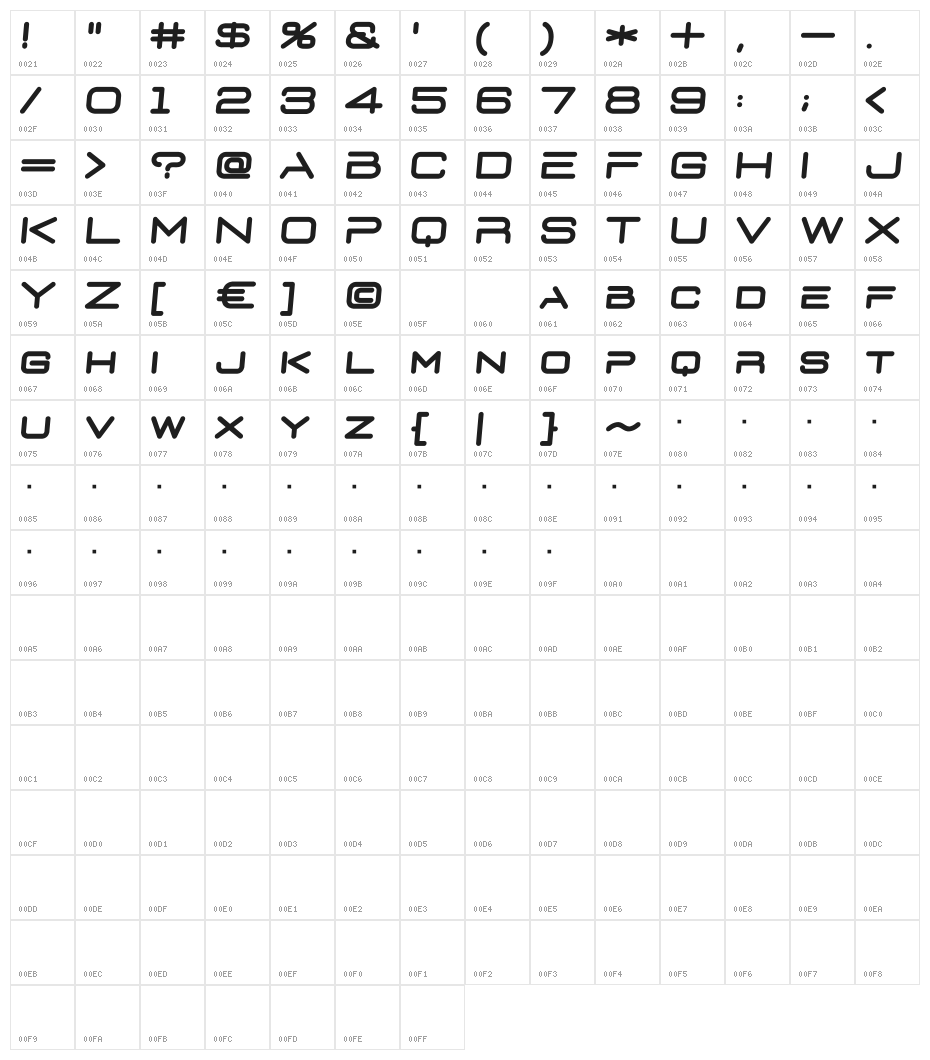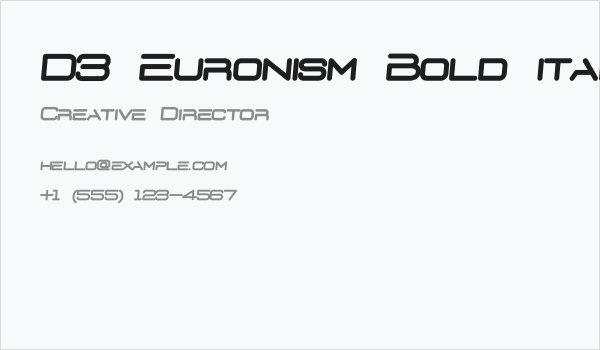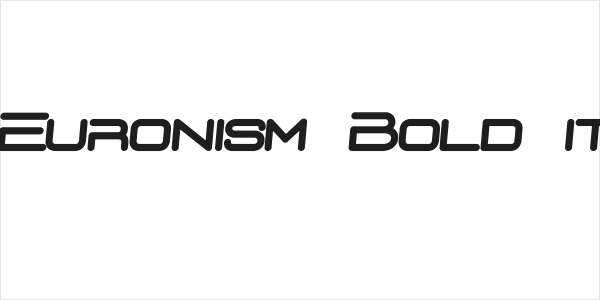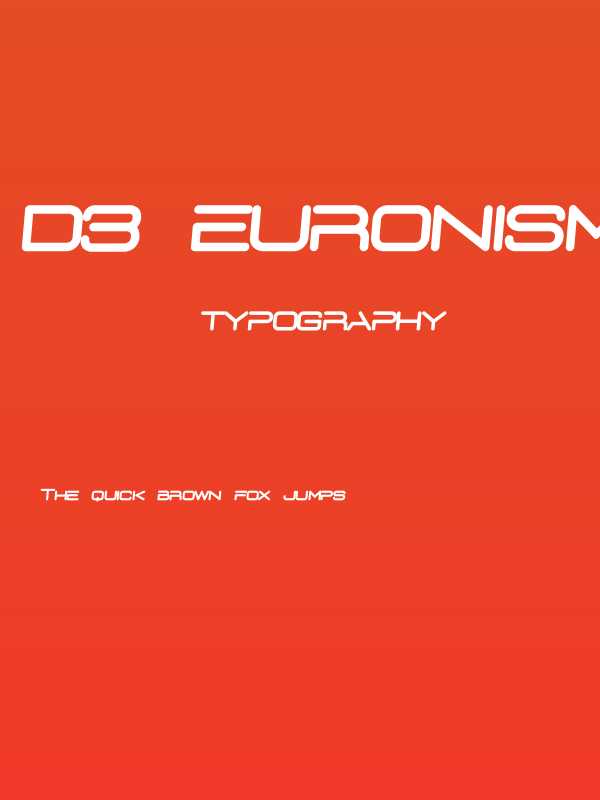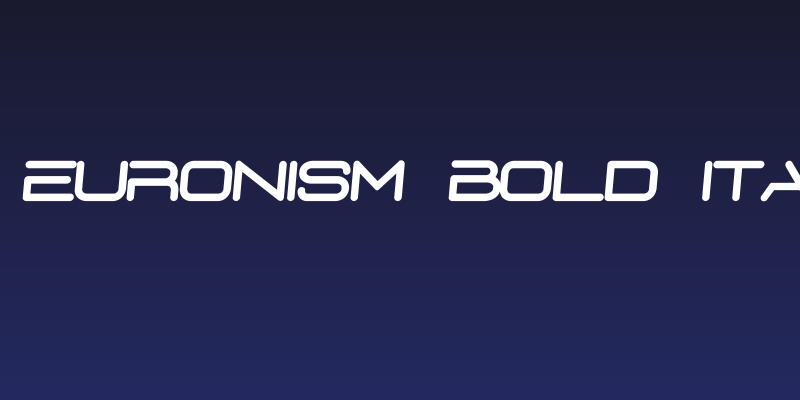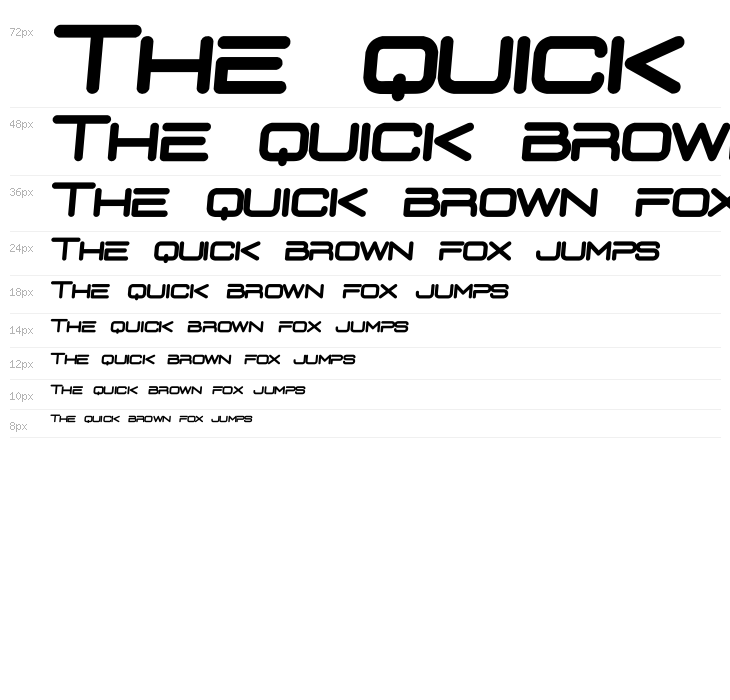
D3 Euronism Bold italic Font
D3 Euronism Bold italic Description
This font features a futuristic and sleek design with a bold and italicized style. The characters are elongated and have a distinct geometric appearance, with rounded edges and a consistent stroke width. The uppercase letters are uniform in height, while the lowercase letters maintain a similar width, creating a cohesive look. The numbers and special characters follow the same design principles, ensuring a harmonious appearance across all glyphs. This font's modern aesthetic makes it suitable for contemporary design projects.
| Proposed Projects | Ideal for technology branding, sci-fi themed posters, modern website headers, and innovative product packaging. |